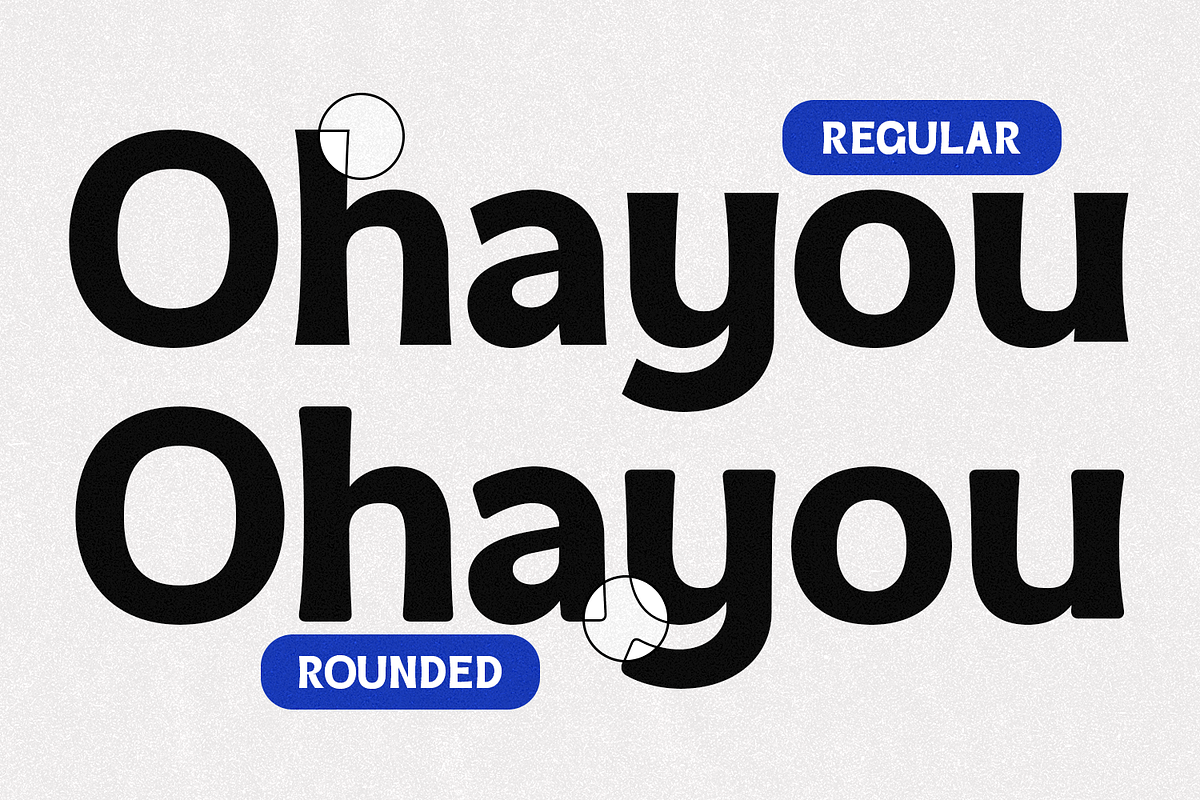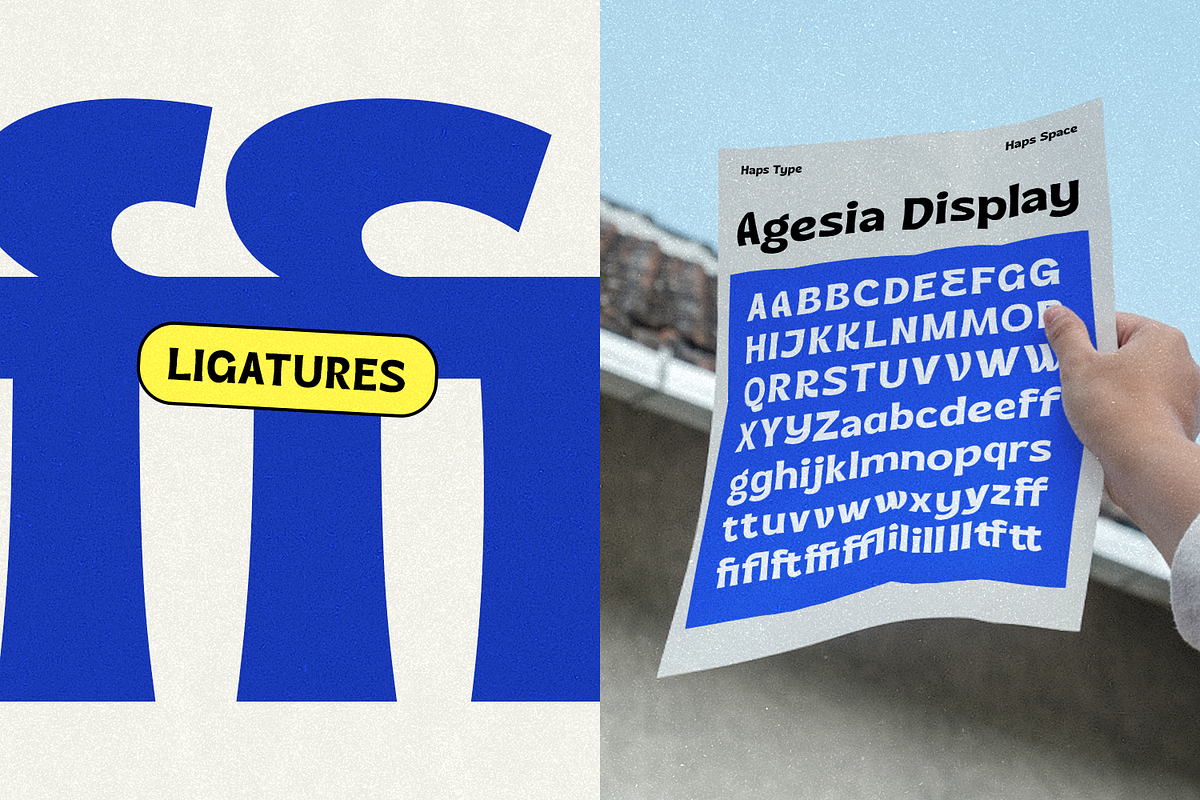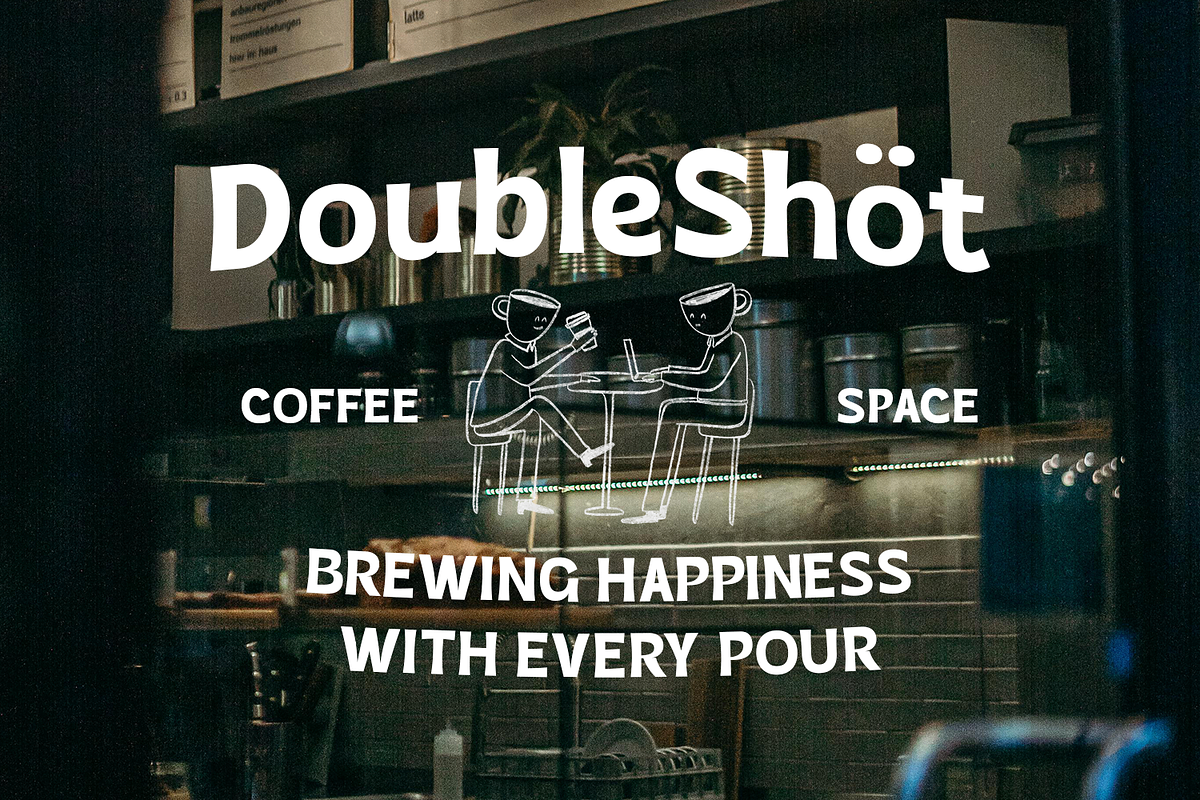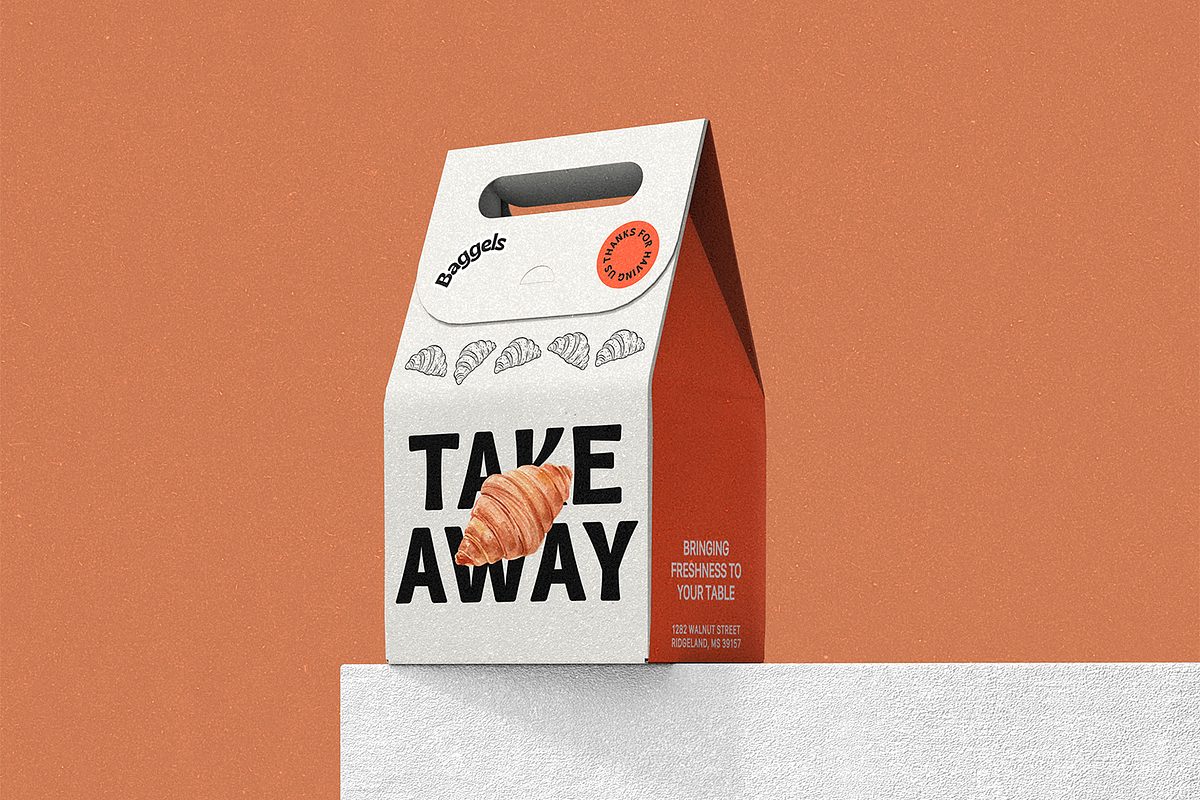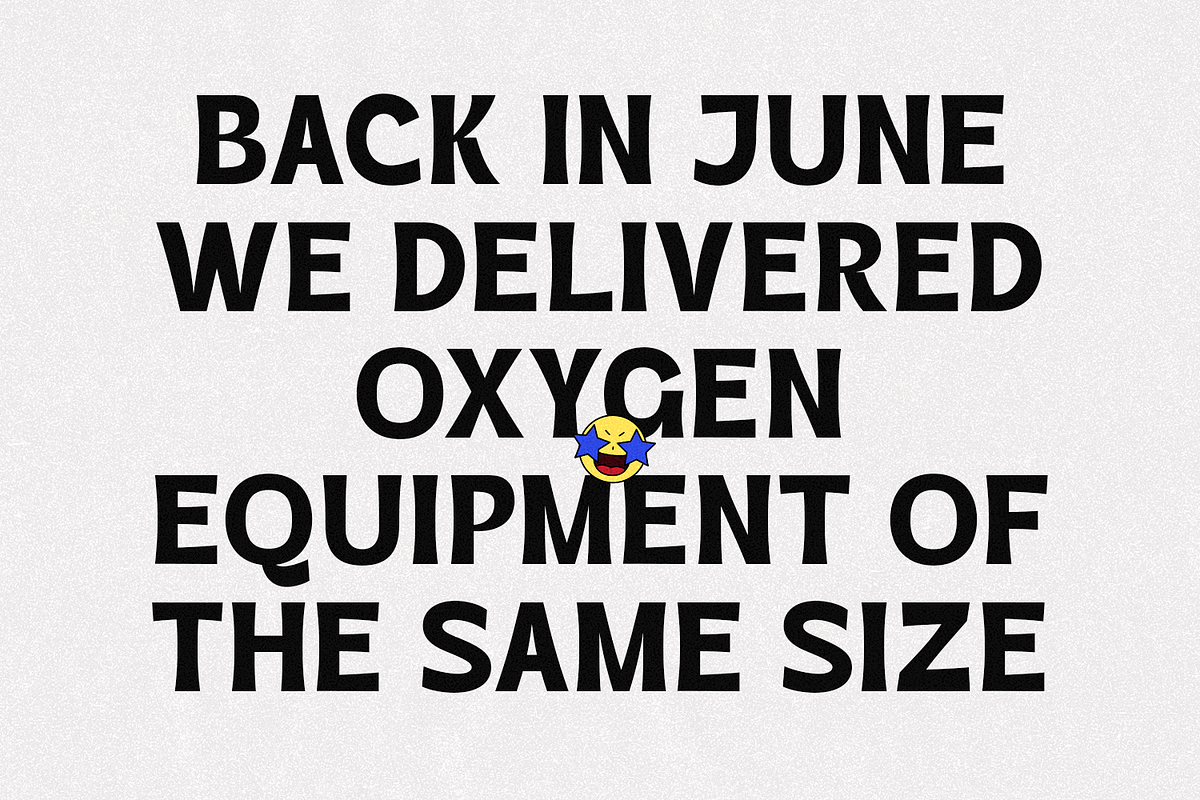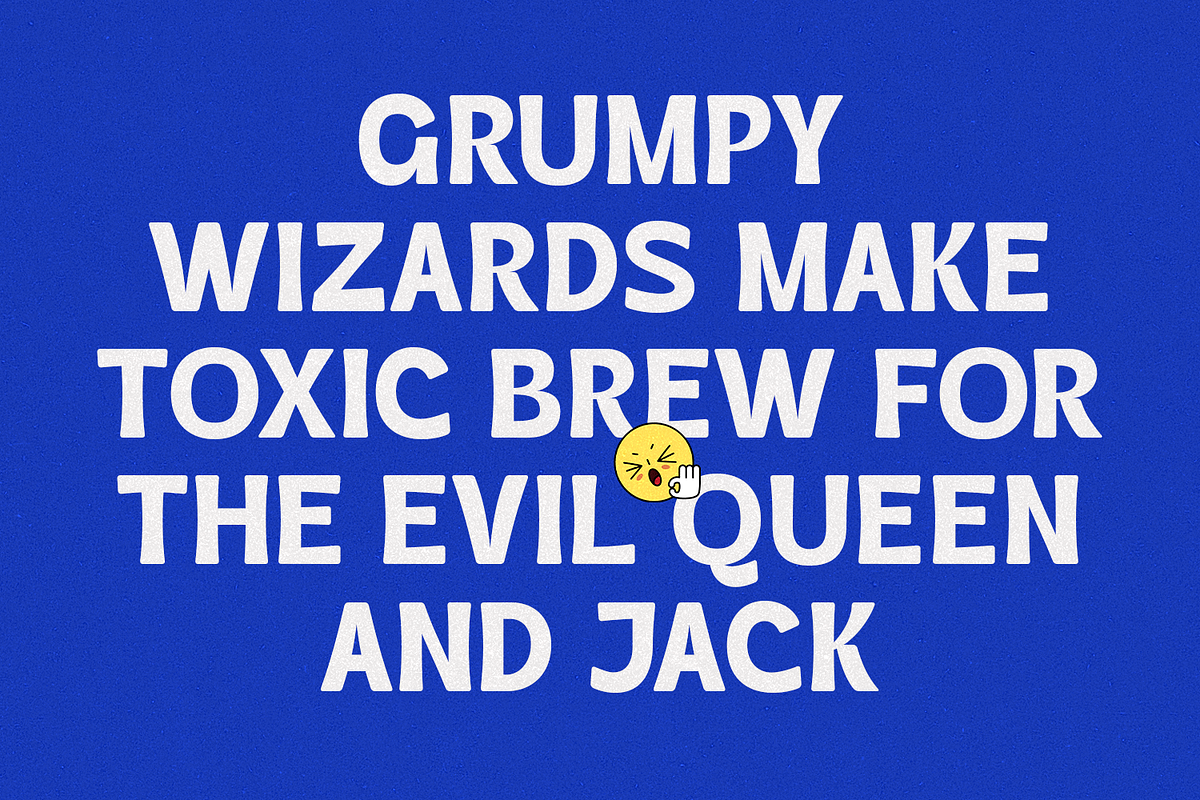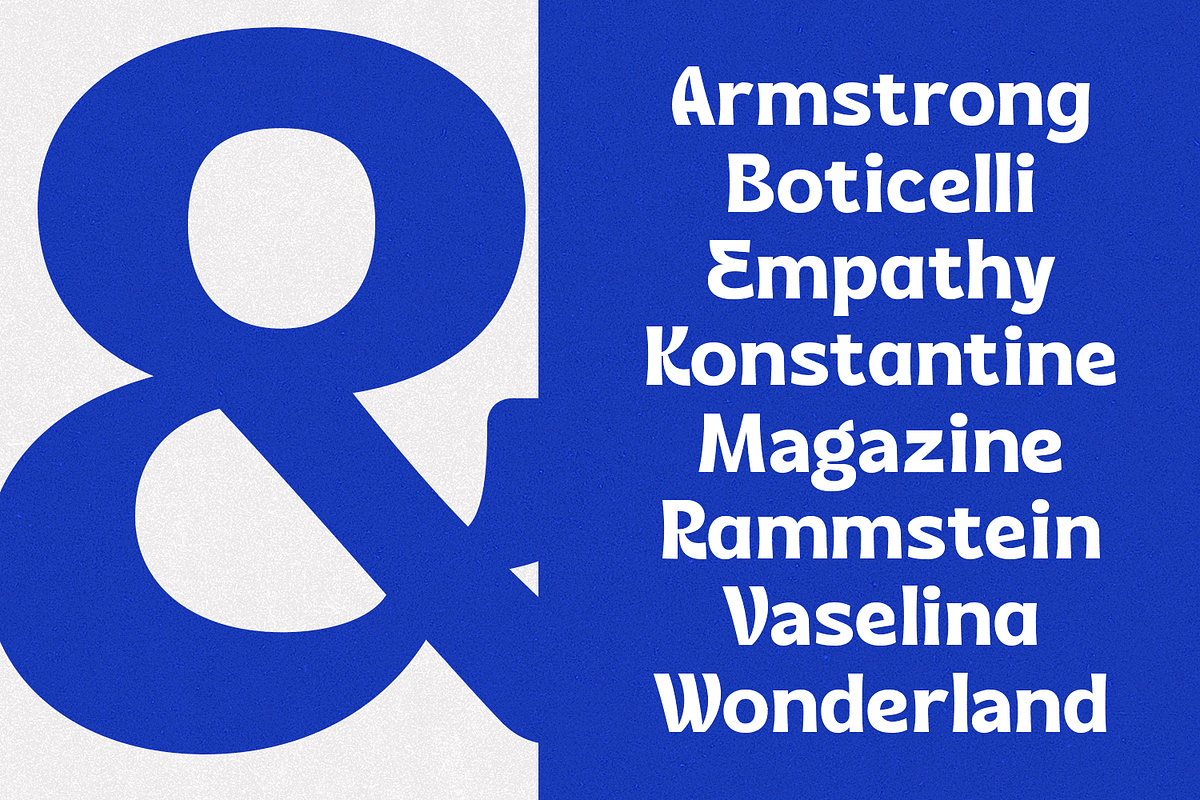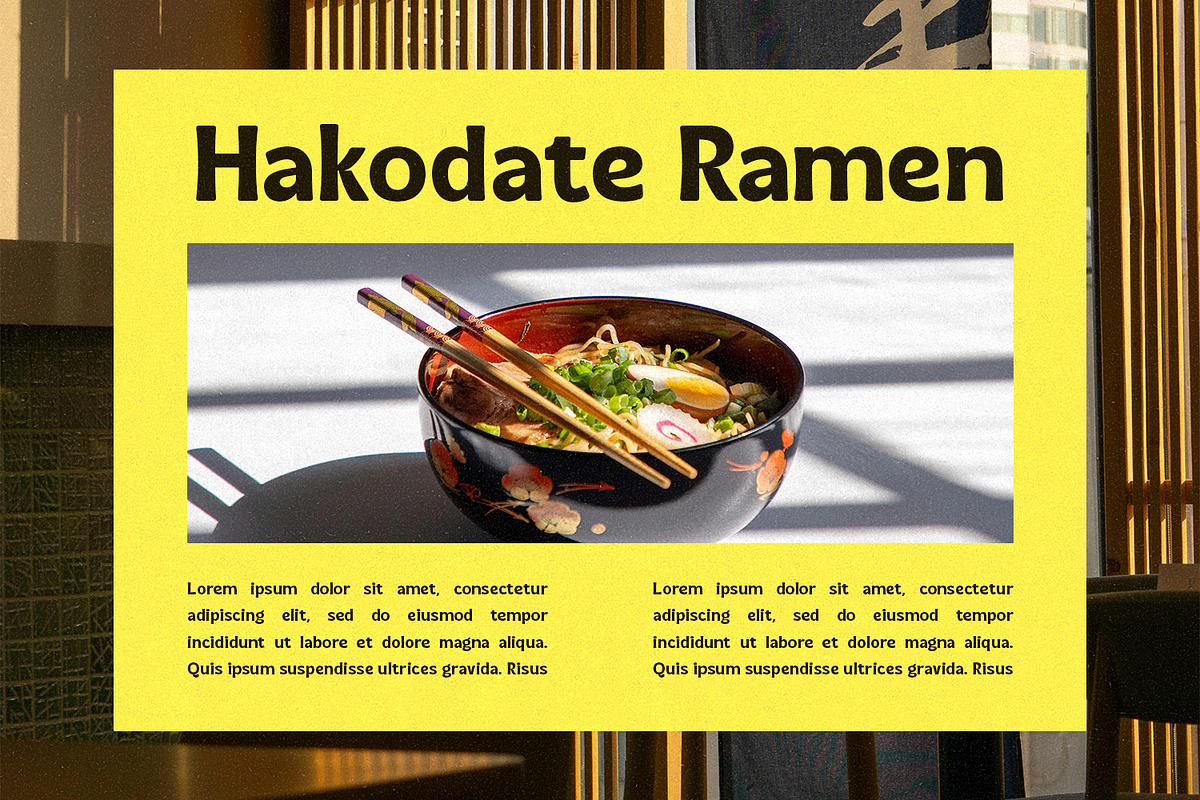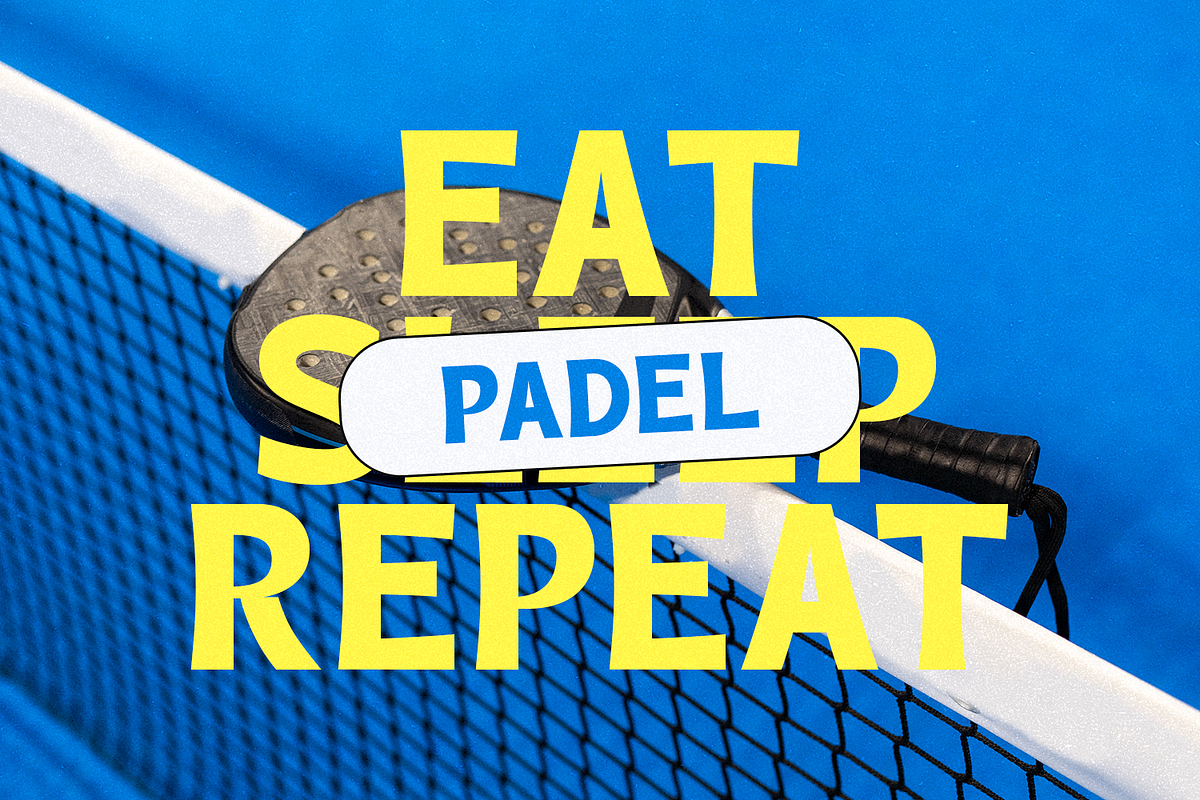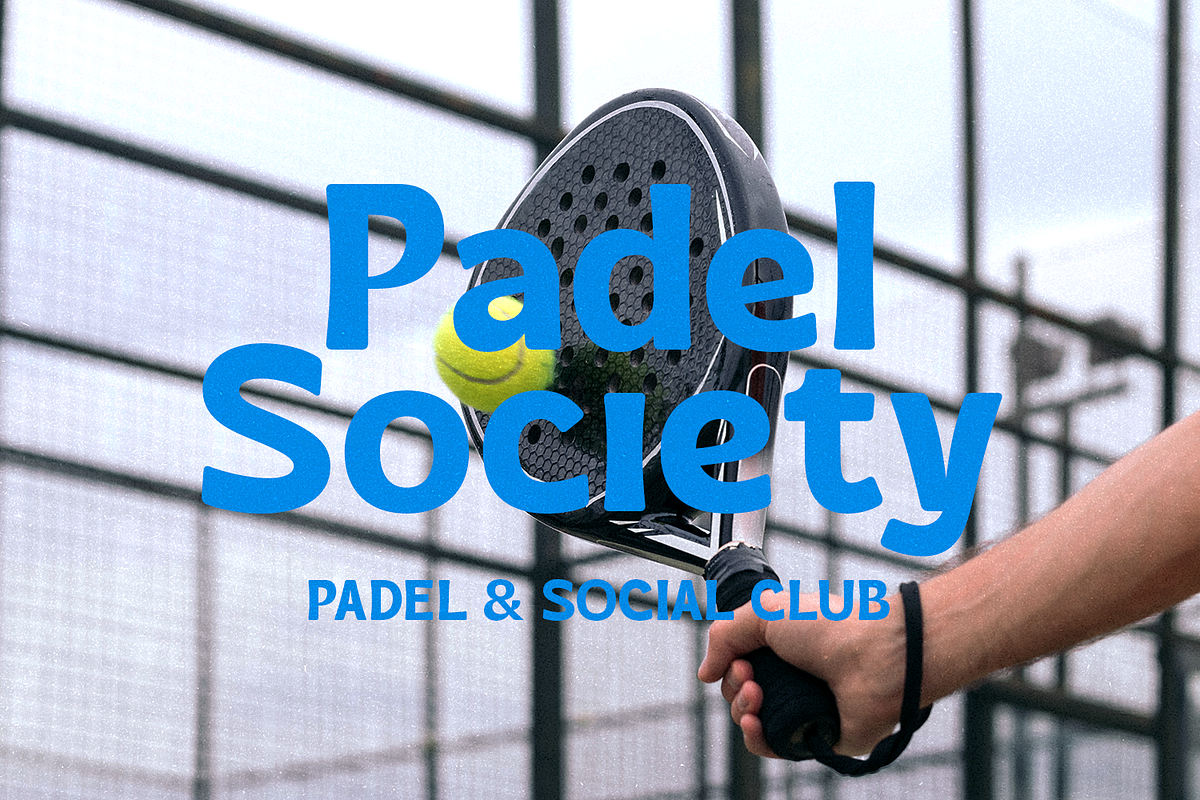
Agesia - Display Font Duo
Agesia Display, a bold and expressive typeface designed to make a statement. Its distinct letterforms and smooth curves create a strong visual presence, making it an ideal choice for titles, branding, and packaging. This font family comes in 2 styles: Regular and Rounded, offering versatility to achieve different looks—from a confident, direct feel to a more approachable, soft aesthetic. Agesia Display is provided in .ttf, .otf, and .woff formats, ensuring full compatibility for both print and digital platforms.
- Unique Letterforms